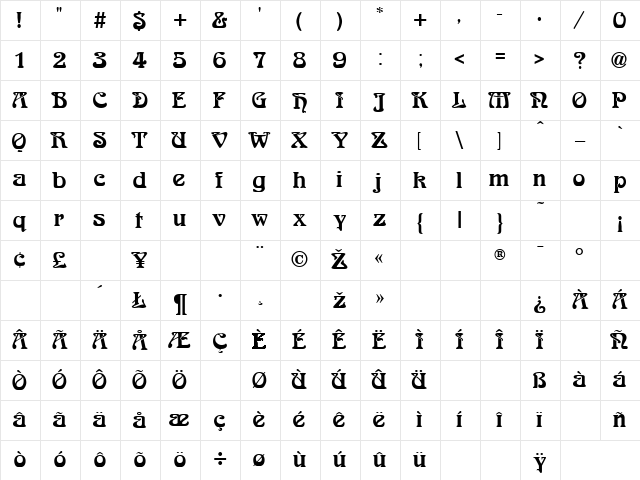
Bocklin Normal Free Font
Bocklin Normal
Bocklin Family
Bocklin Normal
Design Context for Bocklin
Bocklin is a composed and adaptable typeface that performs quietly and consistently across a wide range of design contexts.